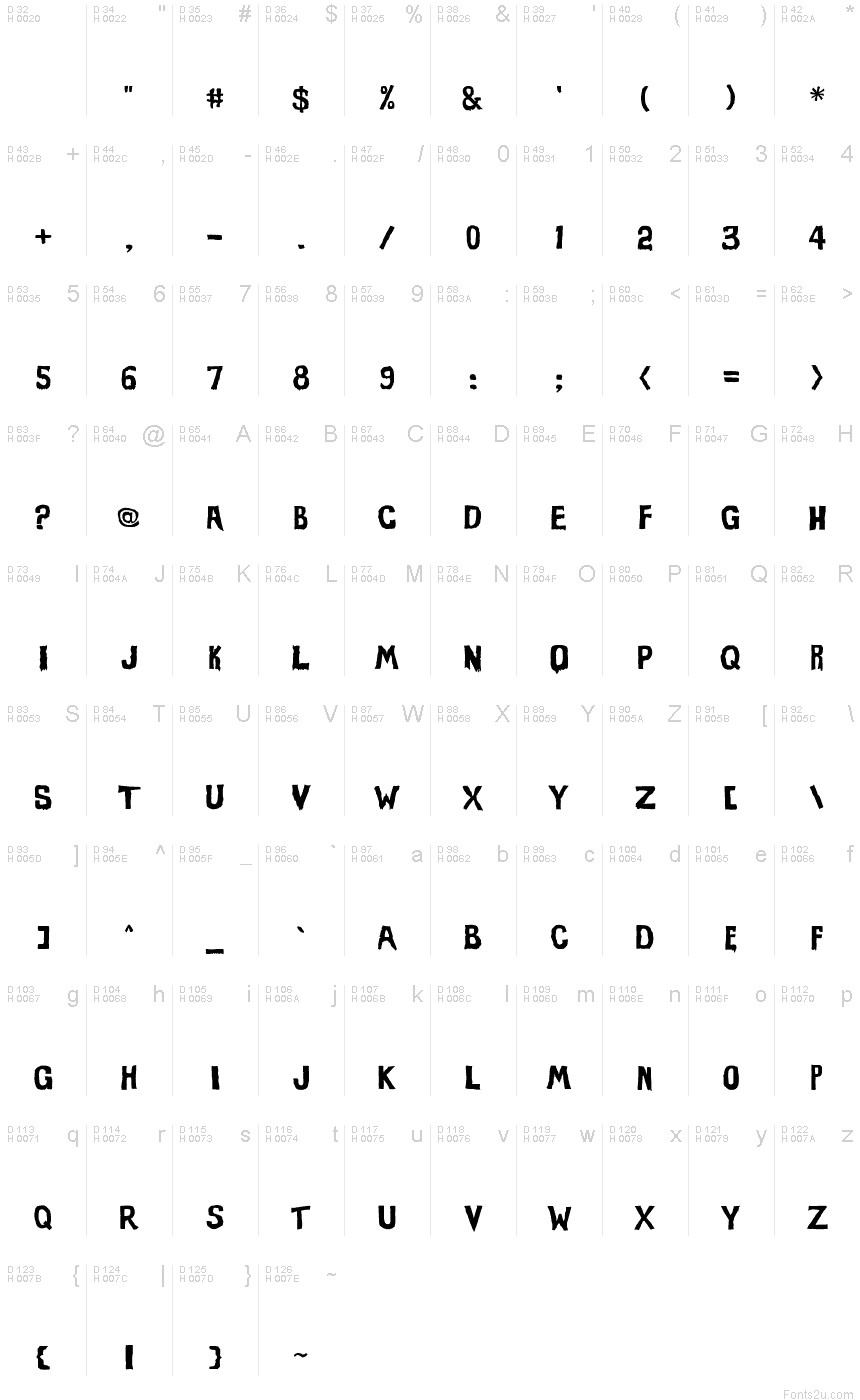
Evil Of Frankenstein
Evil Of Frankenstein font by B.O. Nelson is a free cartoon scary display typeface that oozes classic horror-movie energy. Its jagged silhouettes, dripping bottoms, and uneven tops feel like letters hacked out of pitch-black paper, giving titles a raw, practical shock factor without needing extra effects. The bold, chunky shapes stay legible even when splashed across busy backgrounds or dim lighting.
Using Evil Of Frankenstein, you can fuel Halloween posters, haunted house flyers, spooky party invites, horror podcast covers, retro monster-movie artwork, escape room branding, and creepy game titles. This free font thrives at oversized headline scales; pair it with a clean, understated sans serif for body text to keep the chaos contained while the main title howls.